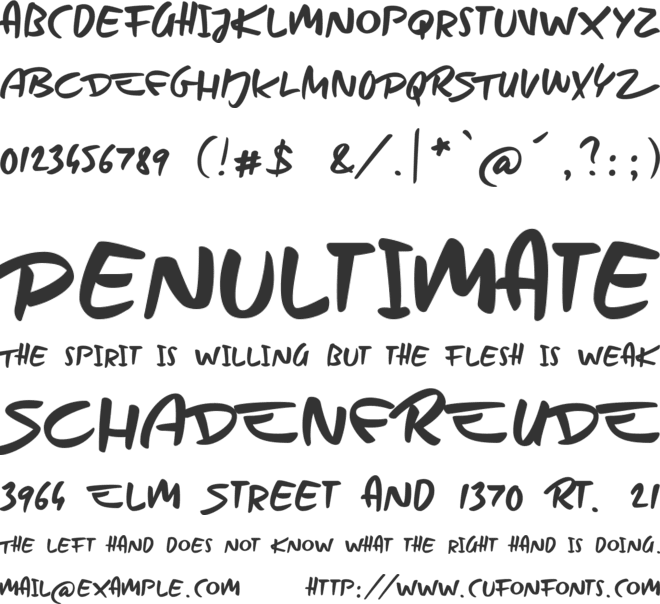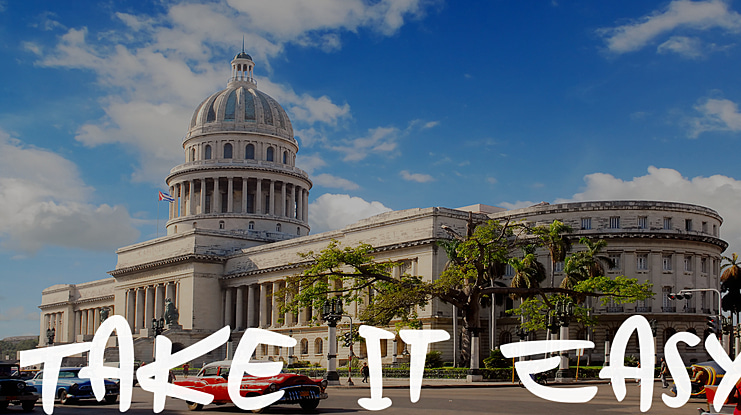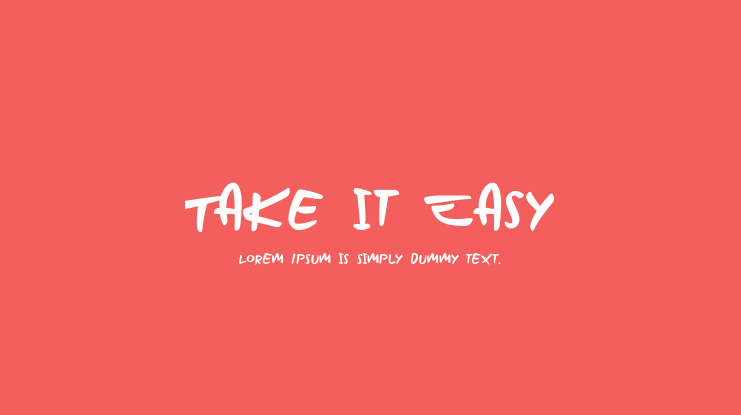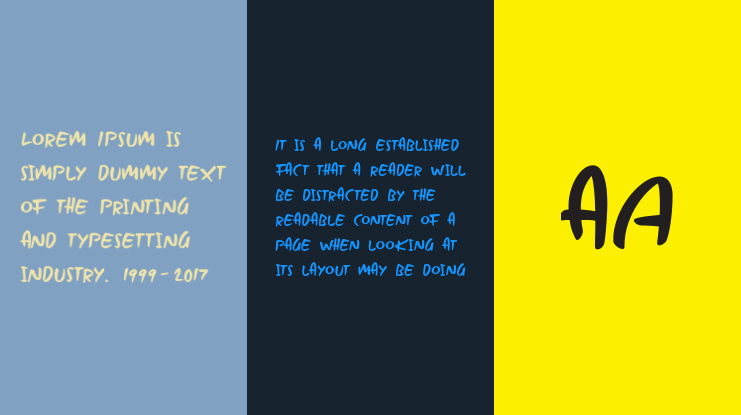
Take it Easy Font
Roland Hüse
TAKE IT EASY is a funky all caps marker hand drawn font.
The "lowercase" letters are alternates for their uppercase pairs, so you can play around combining them to give your text a better flow!